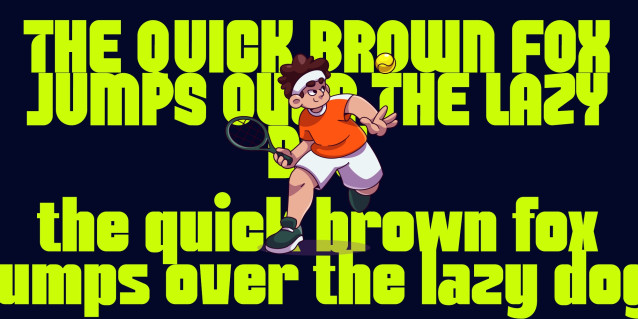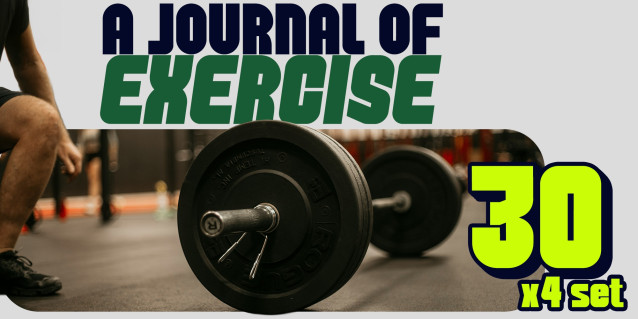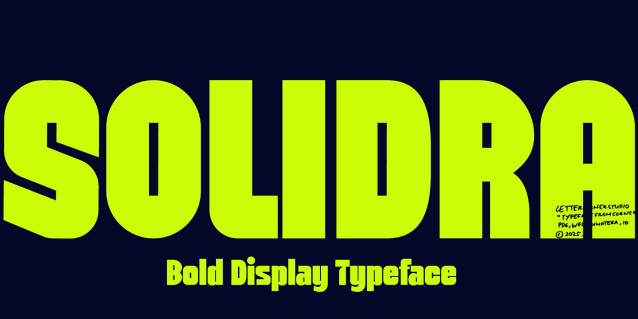
Solidra Font
Solidra Font is a powerful, bold display font built to make a statement.With its compact width, heavy weight, and smooth curves, Solidra delivers strength and clarity in every letter. Designed for headlines, posters, and modern branding, it combines retro-inspired geometry with a fresh, contemporary feel.Every stroke of Solidra is crafted to hold attention — perfect for designs that demand confidence, impact, and visual dominance.